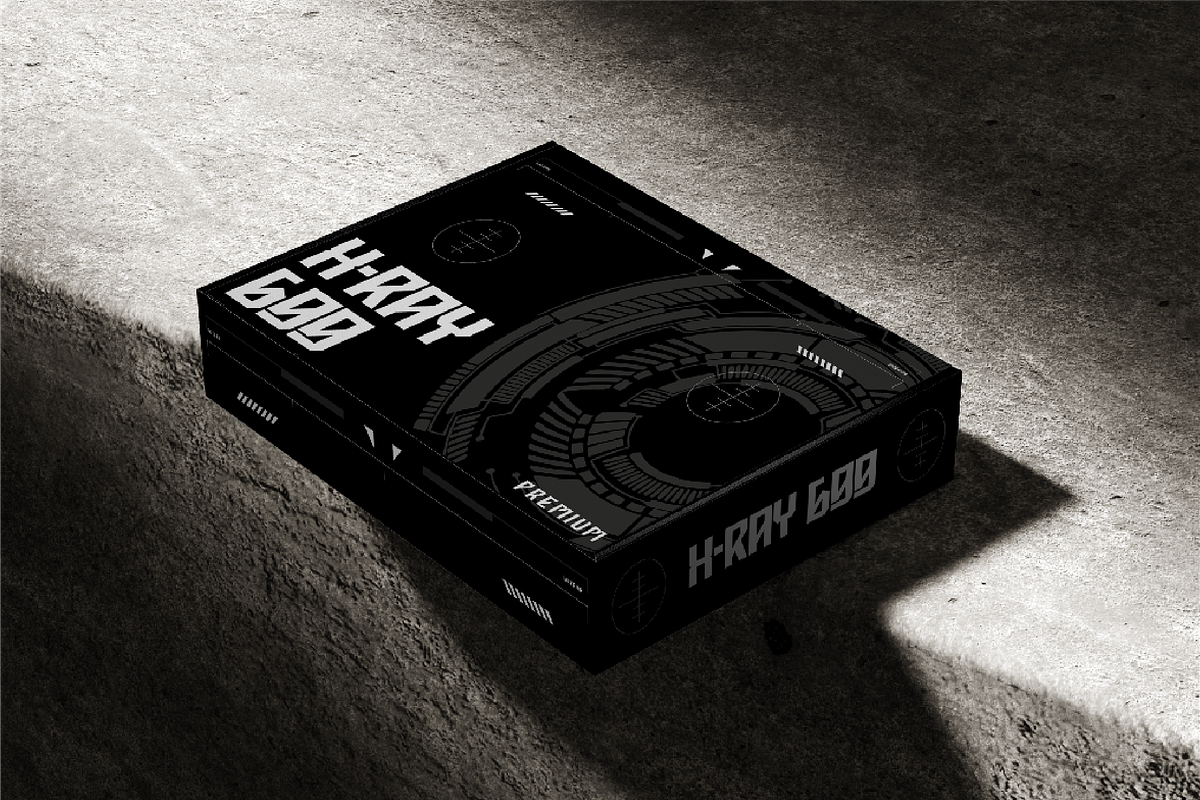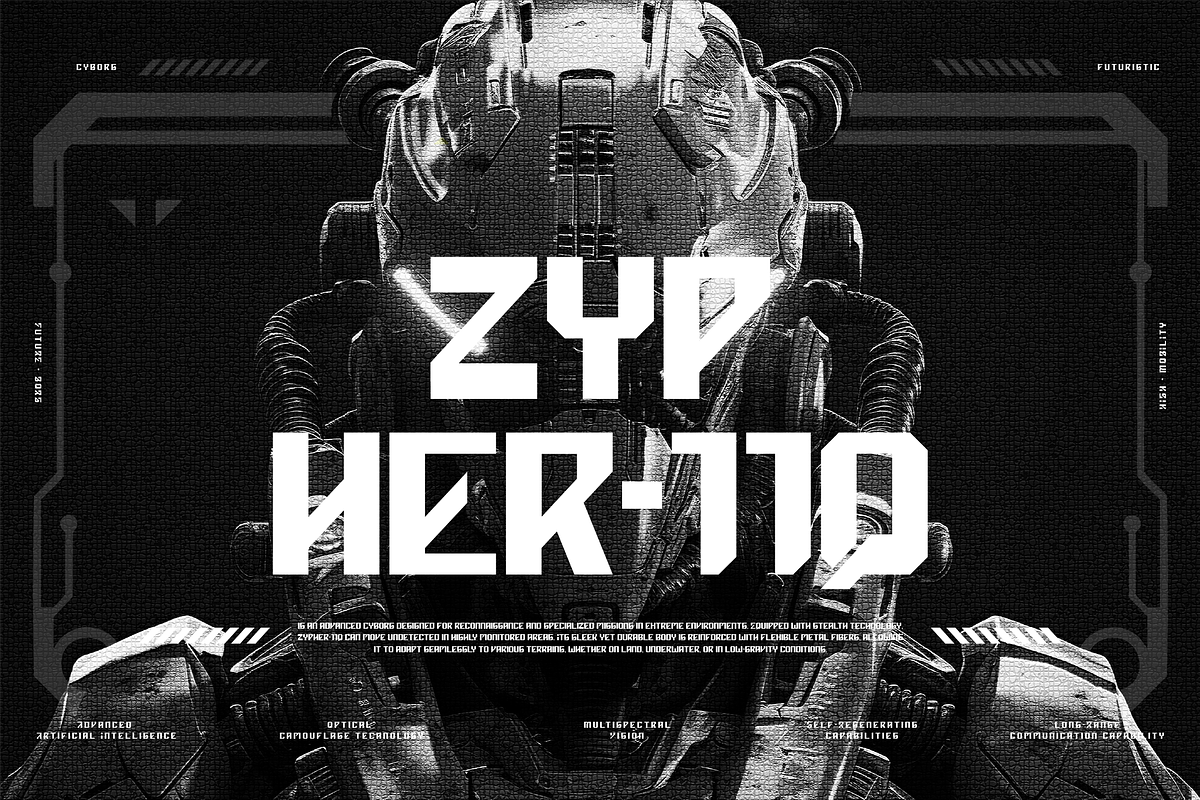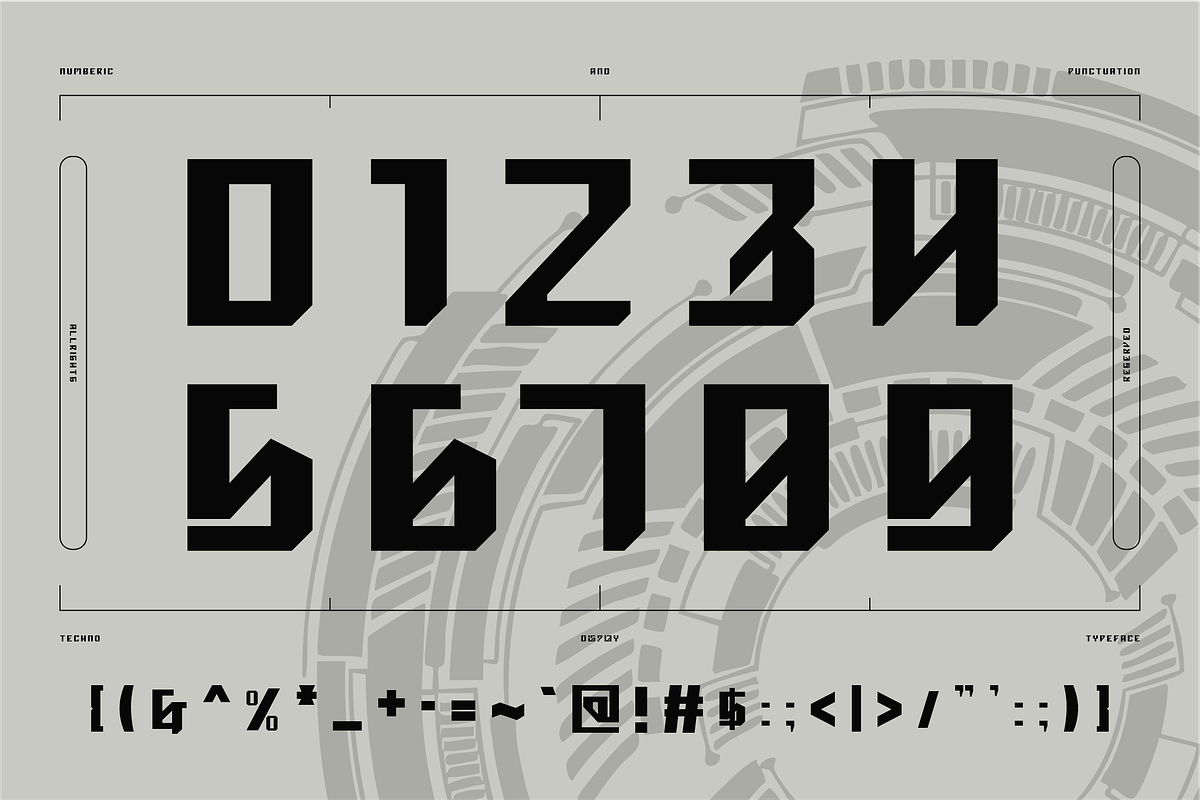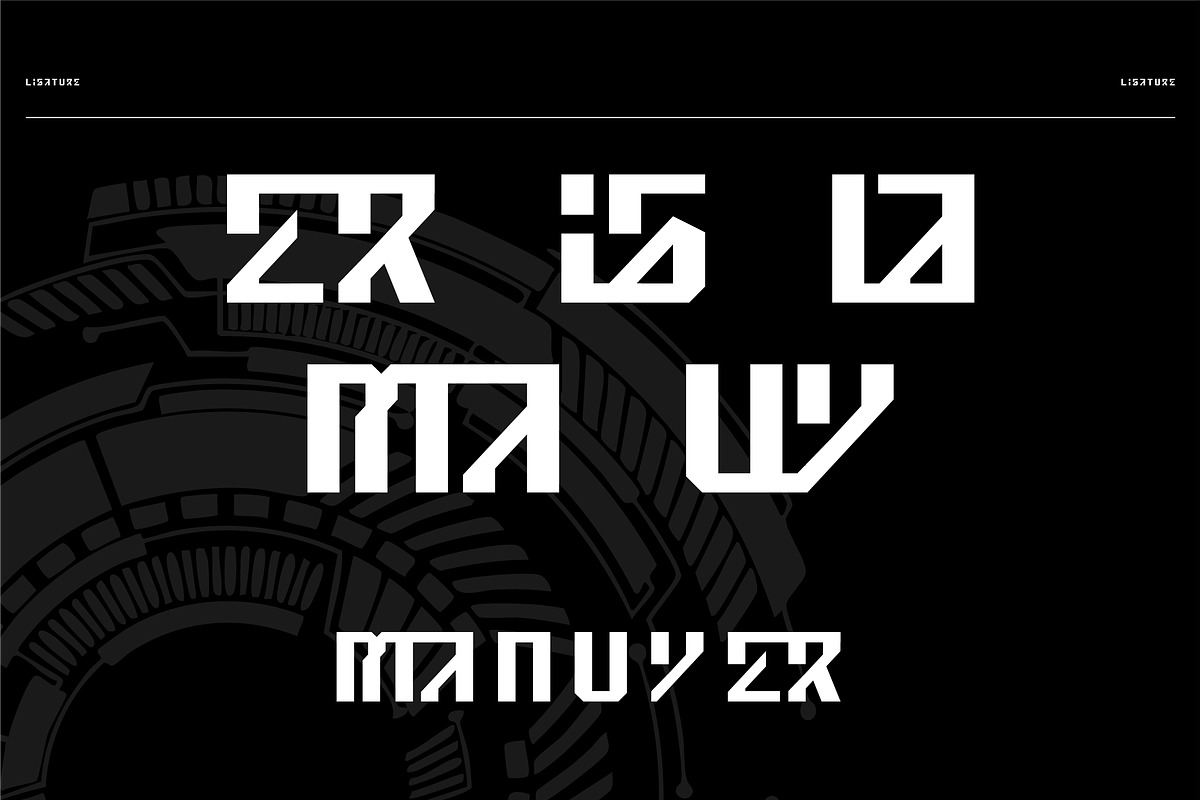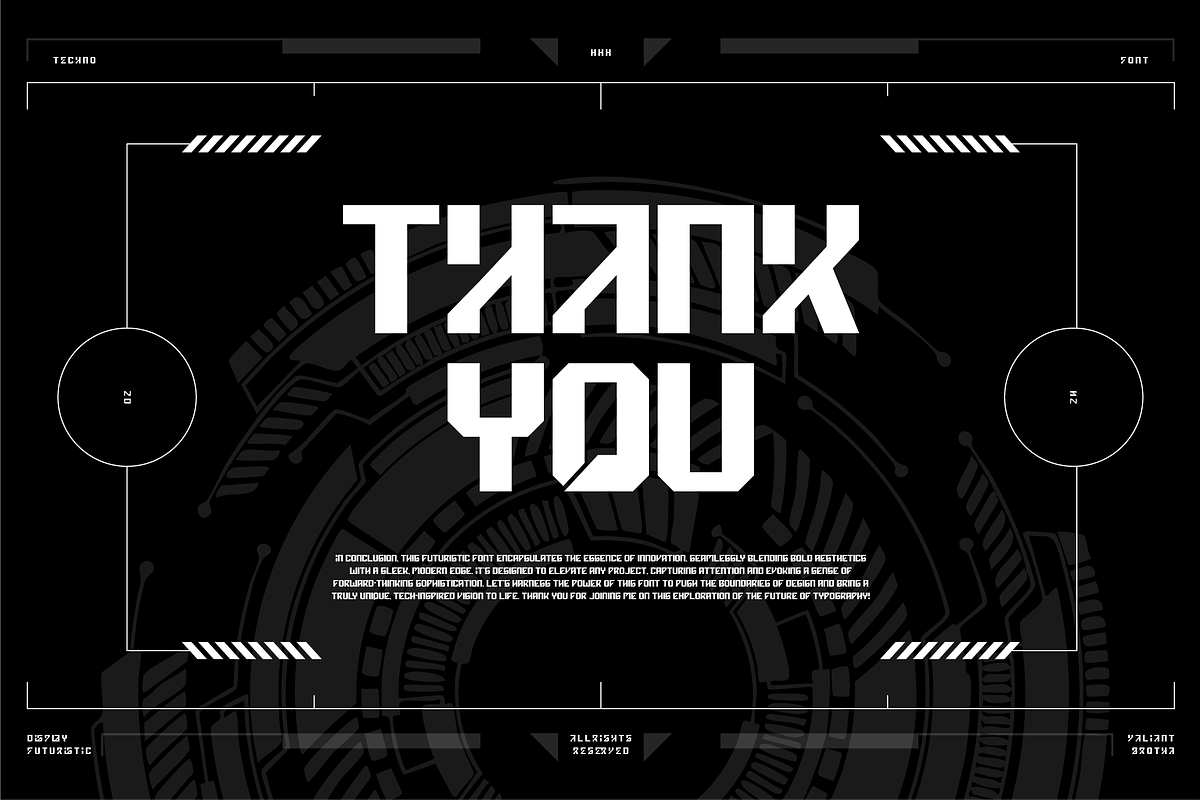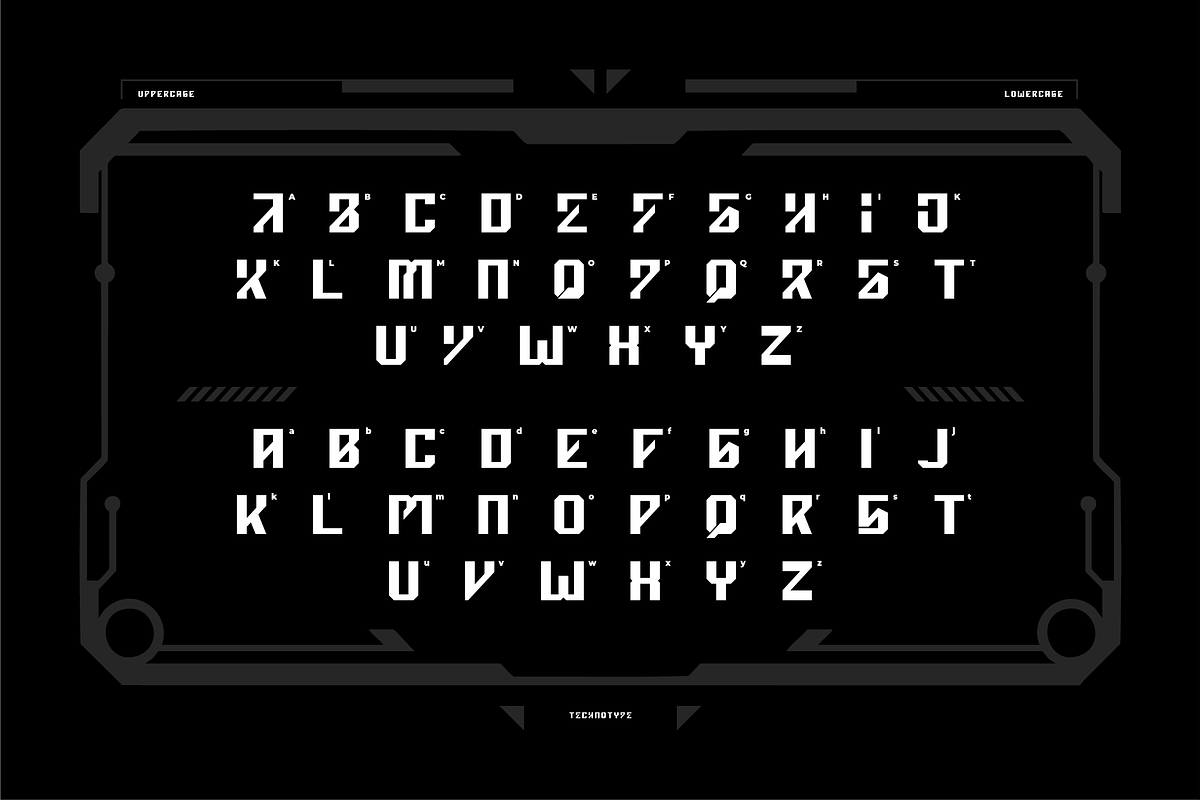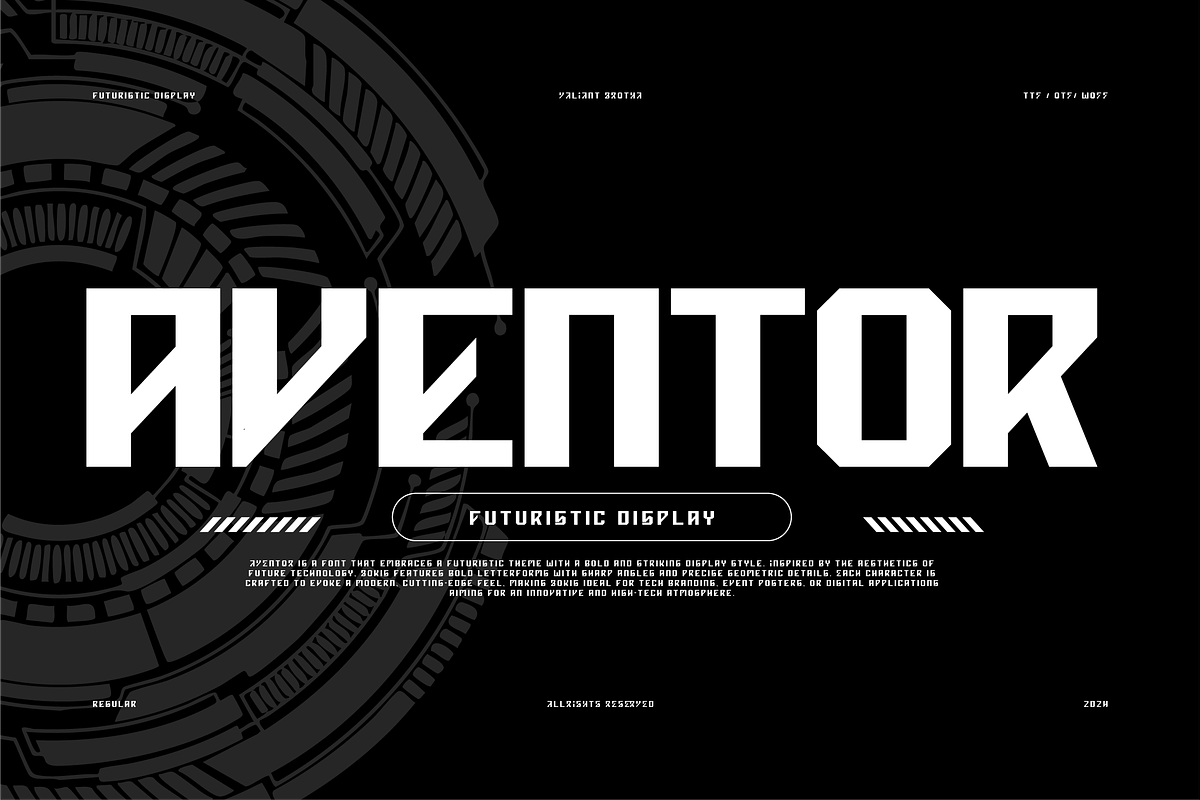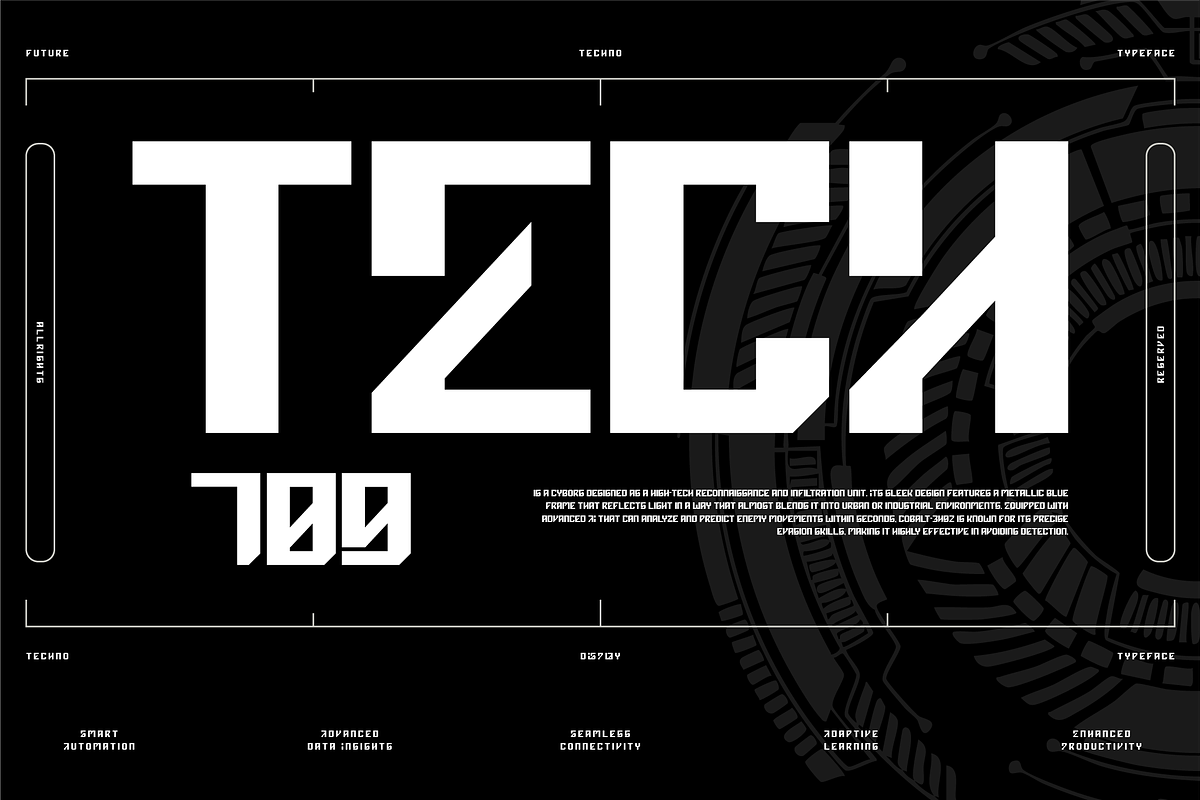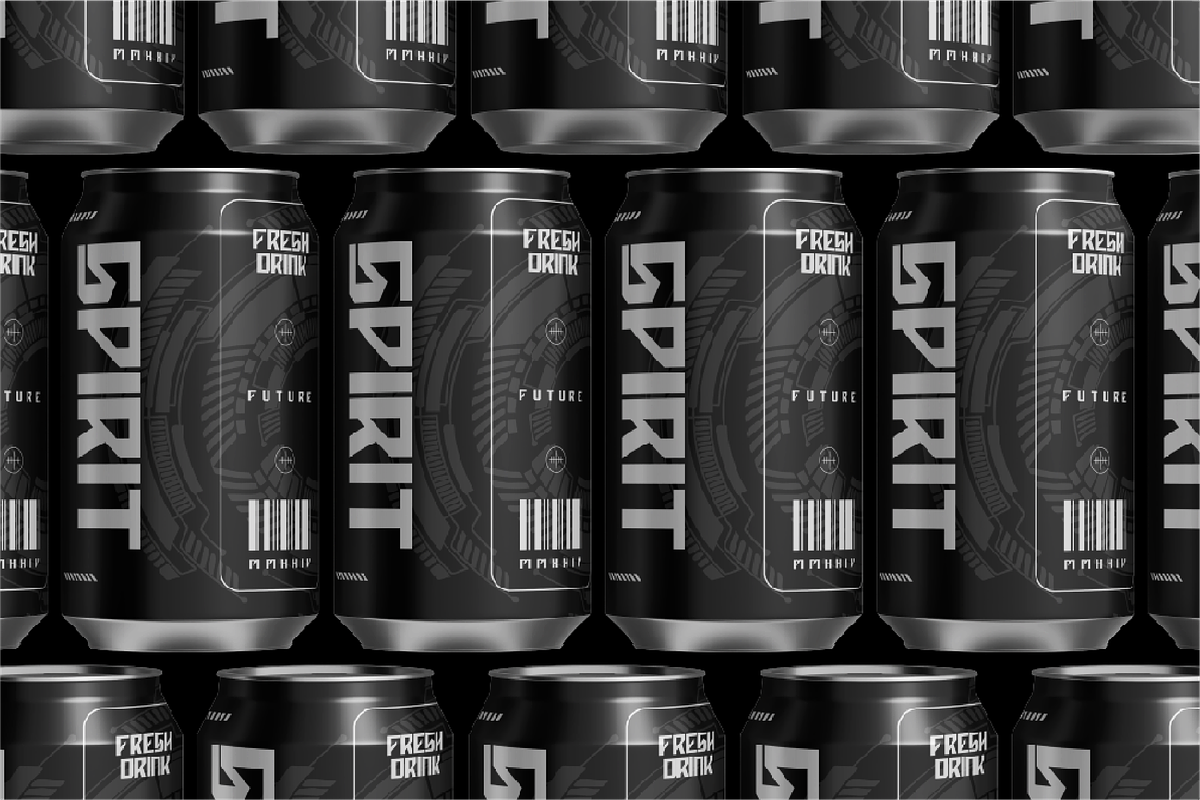
VB Aventor - Futuristic Font
Aventor is a sleek, futuristic font embodying innovative technology and sophistication. Designed for prominence and impact.